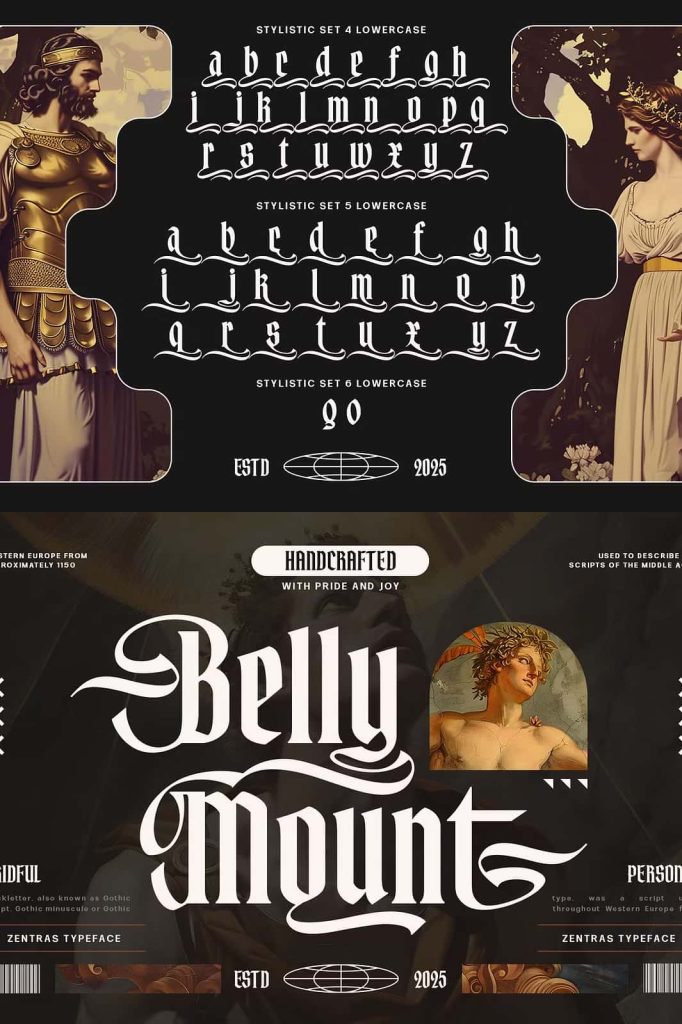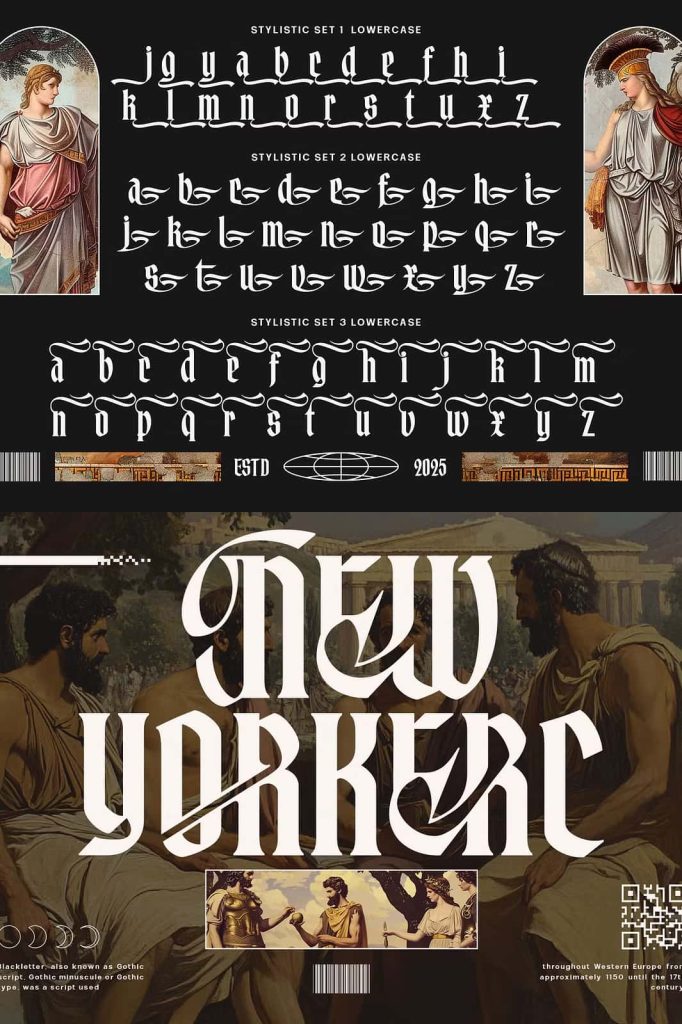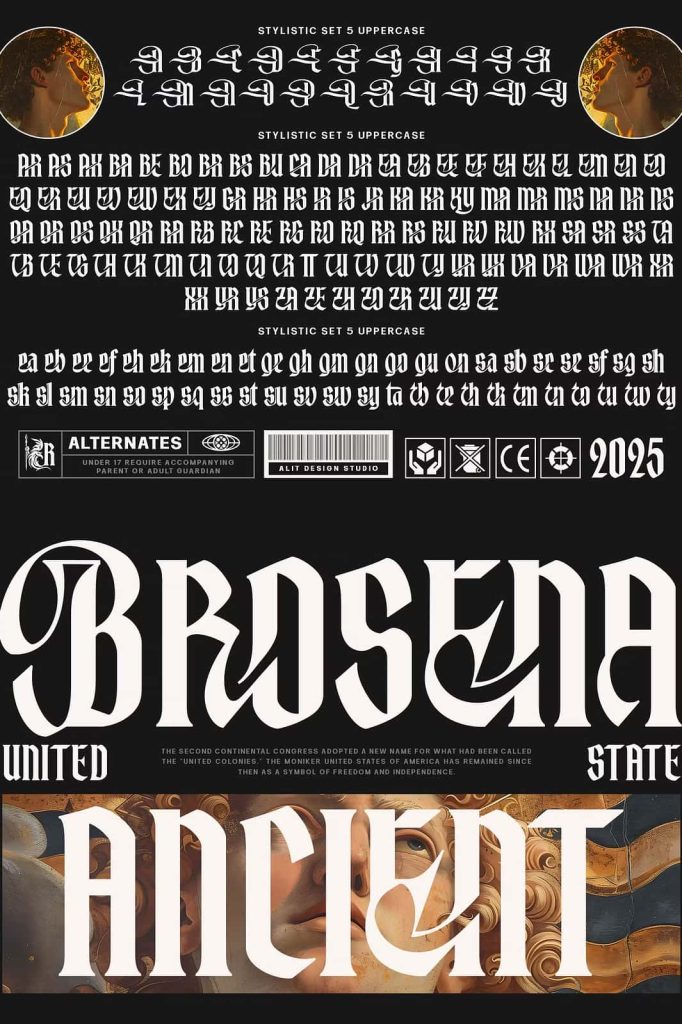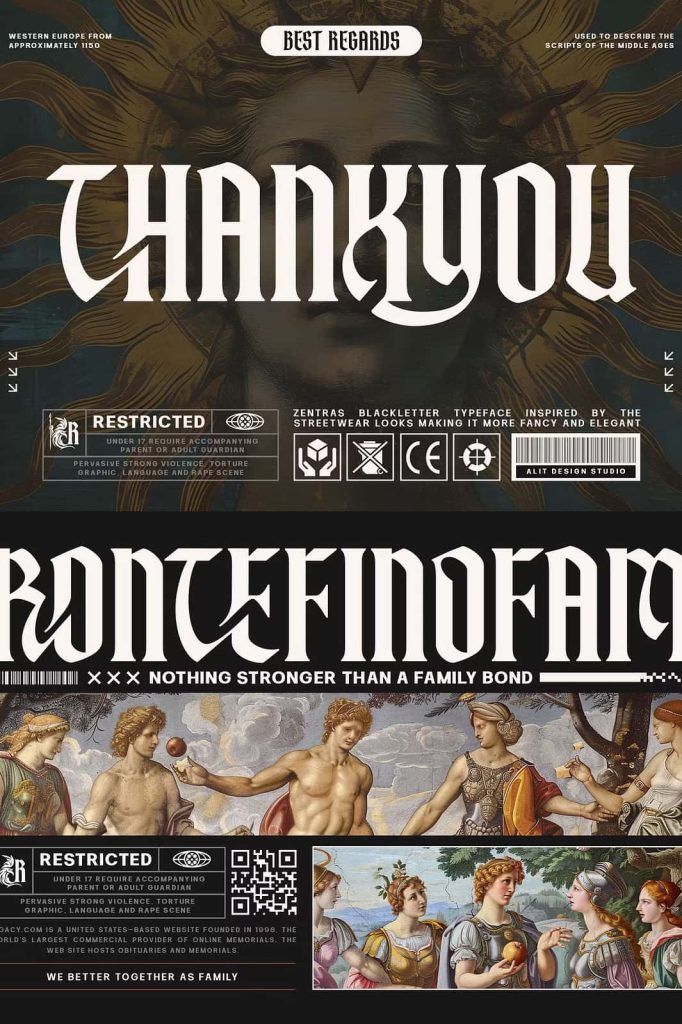
Zentras Typeface
Zentras Bold Blackletter Typeface
Zentras is a bold and elegant blackletter typeface created to deliver strength, style, and a commanding visual presence. This distinctive typeface blends the powerful spirit of Roman heroism with the confident attitude of modern streetwear design. The result is a font that feels both historic and contemporary, combining classical inspiration with modern creative energy.
Blackletter typography has long been associated with tradition, heritage, and authority. Zentras takes these classic influences and refines them with sharp details and modern structure. The typeface introduces clean lines, dramatic strokes, and carefully crafted serifs that create typography with both character and clarity. Designers who want to make a strong statement will find Zentras to be a striking addition to their creative toolkit.
With its bold personality and refined structure, Zentras transforms simple text into visually powerful compositions. Whether used in branding, apparel design, posters, or editorial graphics, this blackletter typeface ensures that every word carries weight and visual impact.
A Blackletter Typeface Inspired by Roman Strength
Zentras draws inspiration from the powerful imagery and cultural symbolism of Roman heroism. Roman art and architecture often emphasized strength, discipline, and authority, and these same qualities influence the design philosophy behind this typeface. The letterforms carry a sense of structure and confidence that reflects the bold visual language of classical design.
Traditional blackletter fonts often appear heavy and ornate, but Zentras introduces a refined approach. The design balances sharp angles and controlled curves to produce letters that feel structured yet expressive. This careful balance allows the typeface to maintain historical influence while remaining visually adaptable for modern design projects.
The Roman-inspired character adds a sense of prestige and timeless power to the typography. When used in large titles or logos, Zentras communicates authority and artistic strength while maintaining an elegant visual rhythm.
Sharp Serifs and Structured Letterforms
One of the defining features of Zentras is its combination of sharp, refined serifs and strong blackletter strokes. The typeface uses bold structural lines to create letters that feel confident and precise. Each character has been carefully designed to maintain visual balance while still expressing the dramatic personality associated with blackletter typography.
The sharp serif details add sophistication to the design. These refined elements create contrast within the letterforms, allowing the font to feel elegant rather than overly heavy. The interplay between thick strokes and fine details helps maintain readability while emphasizing the decorative nature of the typeface.
Because of this structural clarity, Zentras performs well in display typography where visual strength is essential. Headlines and titles appear bold and distinctive, while logos gain a dramatic and memorable identity.
A Perfect Blend of Tradition and Modern Streetwear Style
While Zentras draws inspiration from classical blackletter traditions, it also reflects the influence of modern streetwear culture. Streetwear design often celebrates bold typography, strong visual identity, and expressive lettering styles. Zentras incorporates these ideas by refining its letterforms to feel both stylish and contemporary.
This fusion of traditional and modern design makes the typeface particularly appealing to creative industries that blend heritage with modern aesthetics. Fashion brands, music labels, and streetwear designers can use Zentras to build typography that feels powerful and fashionable at the same time.
The combination of heritage and modern style allows Zentras to stand out among typical blackletter fonts. It feels fresh and relevant while still honoring the visual history of the blackletter tradition.
Ideal for Branding and Logo Design
Zentras works exceptionally well in branding and logo design where typography must communicate strength and identity. The bold structure and distinctive character shapes help create memorable brand marks that stand out across different media platforms.
Designers can use Zentras to craft logos for fashion brands, creative studios, gaming communities, music artists, and lifestyle companies. The typeface brings dramatic visual presence to brand names, helping them become recognizable and impactful.
Because of its refined serif details and structured strokes, Zentras also maintains clarity when scaled to different sizes. Whether used on packaging, promotional graphics, or digital branding, the font retains its bold personality and visual strength.
Perfect for Posters, Apparel, and Music Artwork
Display typography often requires fonts that capture attention instantly, and Zentras excels in this area. Posters and promotional graphics benefit from the dramatic shapes and bold rhythm of the letterforms. Titles created with Zentras immediately stand out and command visual attention.
Zentras empowers designers to create typography that feels bold, elegant, and visually unforgettable. By blending the historical power of blackletter design with modern streetwear sophistication, the typeface offers a unique visual identity that stands out in contemporary design.
From logos and posters to apparel graphics and album artwork, Zentras delivers a dramatic typographic style that captures attention and communicates strength. Designers who want to produce impactful creative work will find this bold blackletter typeface to be an essential addition to their font collection.